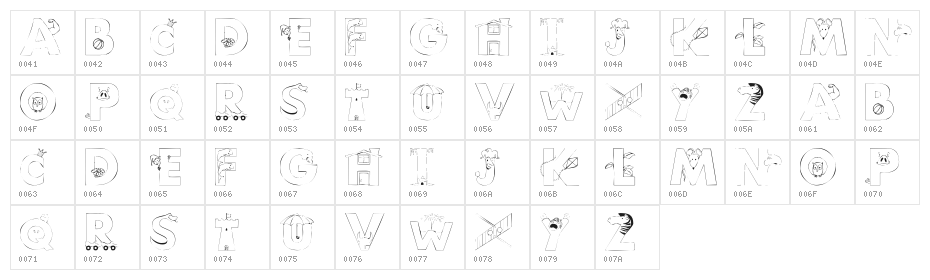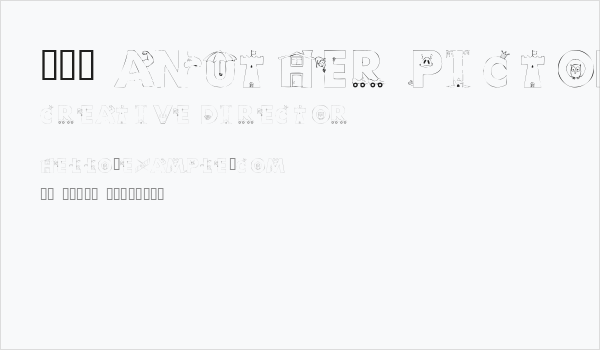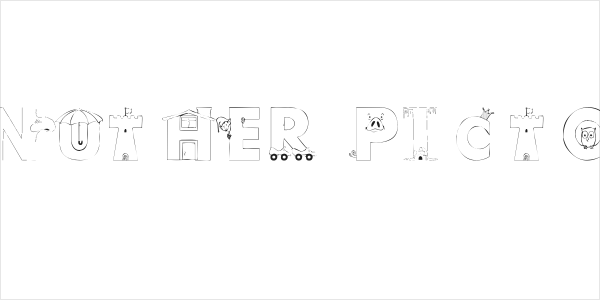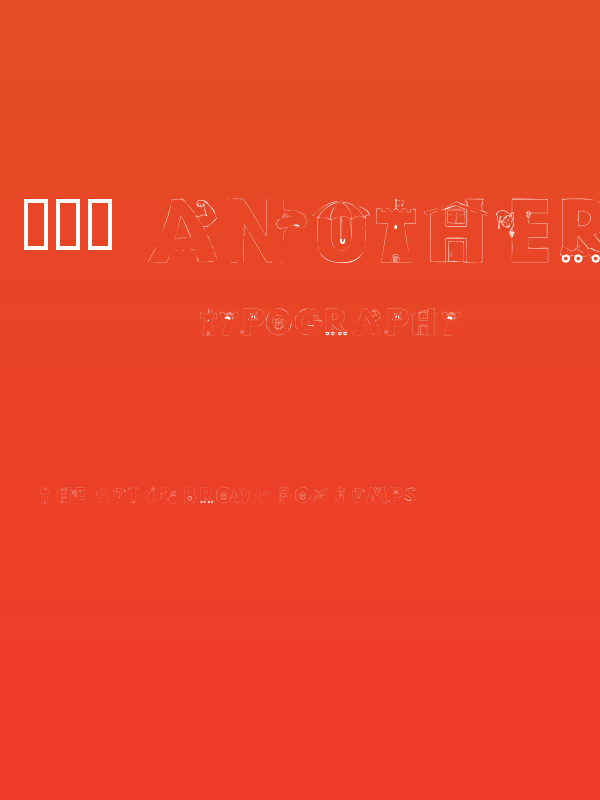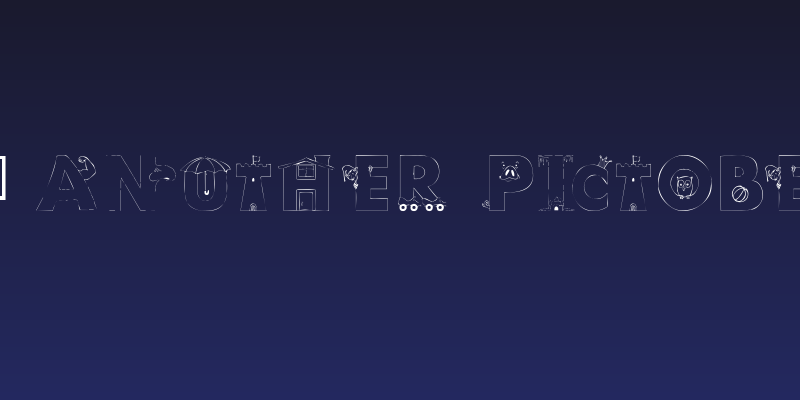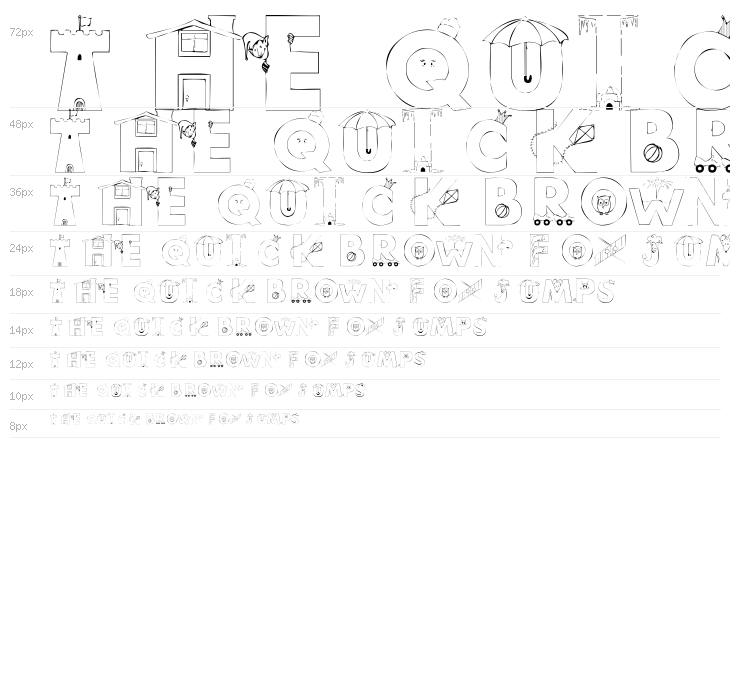
101 Anuther PictoBet Font
101 Anuther PictoBet Description
This font features a playful and decorative style, incorporating whimsical illustrations within each letterform. The uppercase and lowercase letters are filled with unique, cartoon-like drawings that add a sense of fun and creativity. The characters are bold and eye-catching, making them suitable for projects that require a lively and engaging visual element. The numbers and special characters also follow this theme, ensuring consistency across the entire character set. The font's artistic nature makes it ideal for children's books, playful branding, or any project that benefits from a touch of humor and imagination.
| Proposed Projects | Children's books, playful branding, creative posters, and whimsical invitations. |